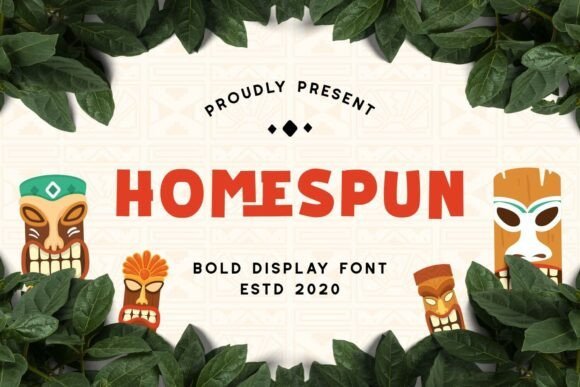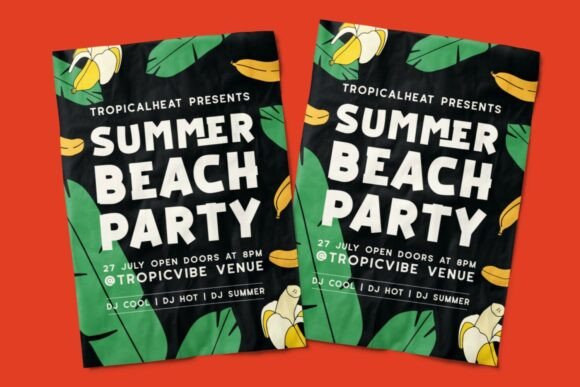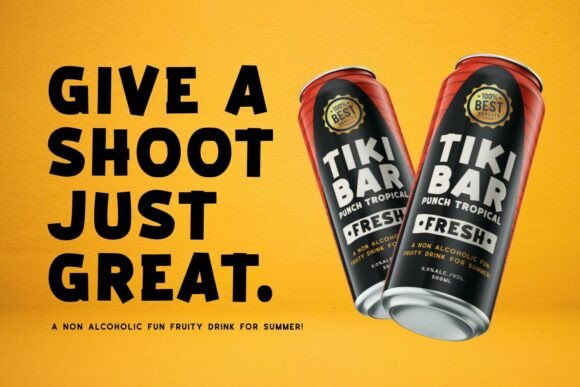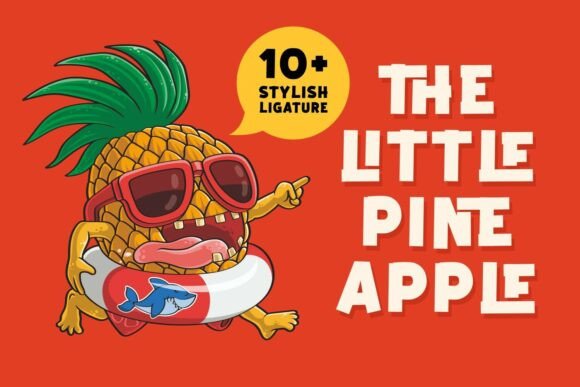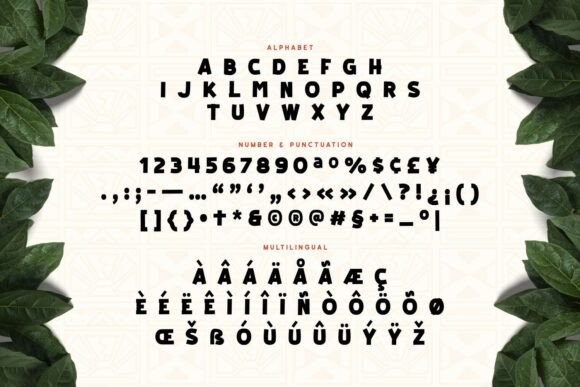
A Tropical Getaway in Every Design
Have you ever been stuck on a design project, searching for that perfect font to transport your audience to a sun-kissed island getaway? You know, the kind of place where palm trees sway in the breeze, and the sound of waves crashing against the shore is music to your ears? That’s exactly what the Homespun Font aims to deliver.
With its bold and playful display style, Homespun Font is the perfect addition to any project that needs a splash of fun and adventure. Inspired by tiki culture and rustic hand-carved signs, this typeface is sure to bring a tropical twist to your designs. Whether you’re branding, creating posters, or packaging products, Homespun Font is the perfect choice to make your designs stand out.
What sets Homespun Font apart is its PUA-encoded design, allowing effortless access to all glyphs, swashes, and alternate characters. This means you can unleash your creativity without any limitations, making it an invaluable asset for designers looking to add a personal touch to their work.
Homespun Font Key Features
- Font Family: A unique, hand-drawn font with a warm, rustic feel.
- Character Set: Includes over 200 characters, including uppercase and lowercase letters, numbers, and punctuation marks.
- Unique Characteristics: Features a distressed, vintage look with subtle texture and imperfections, adding a touch of warmth and personality to any design.
Homespun Font Review
I recently had the chance to work with the Homespun font, and I must say it’s a unique addition to any design project. ✨
- ✨ Friendly and approachable feel: Homespun font has a warm and inviting personality that’s perfect for design projects that need a human touch.
- ✨ Versatility: Despite its rustic feel, Homespun font is surprisingly versatile and can be used in a wide range of design contexts, from logos to body text.
- ✨ Unique character set: The font’s character set is well-designed, with a good balance of uppercase and lowercase letters, numbers, and punctuation marks.
However, there are a few limitations:
- ⚠️ Limited language support: As with many fonts, Homespun’s language support is limited, which may be a concern for designers working on projects that require multiple languages.
- ⚠️ Not ideal for small text: Due to its rough, hand-drawn feel, Homespun font may not be the best choice for small text or body text where legibility is crucial.
Overall, I think Homespun font is a great addition to any designer’s toolkit. While it may have its limitations, its unique personality and versatility make it a great choice for design projects that need a touch of warmth and human connection.
For the best results, use the Homespun font in conjunction with distressed or vintage-themed designs.
The Homespun font is ideal for:
• Wedding invitations and stationery
• Vintage-inspired designs and illustrations
• Distressed or worn-out effects
Carolyna Pro is a elegant, sophisticated font with a touch of whimsy. It features intricate details and ornate flourishes, making it ideal for use in branding, packaging, and advertising. When to use: Fashion brands, beauty products, and upscale packaging. Compared to Homespun Font: While Homespun Font has a warm, rustic feel, Carolyna Pro is sleek and refined, with a more modern tone.
Q: Is the Homespun Font optimized for digital use?
Yes, the Homespun Font is designed for digital use and is optimized for clear readability on screens. The font features include advanced hinting and kerning, which ensure smooth rendering and crisp text at various font sizes and resolutions.